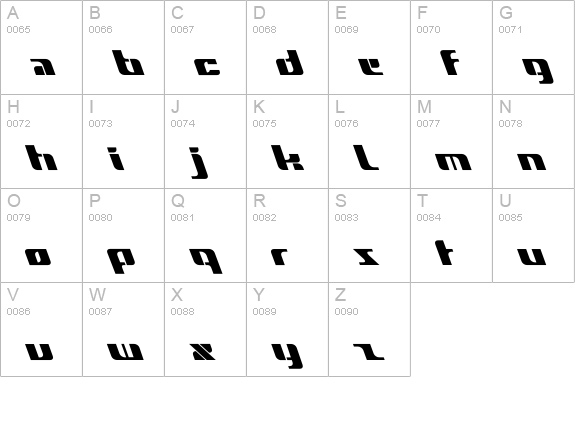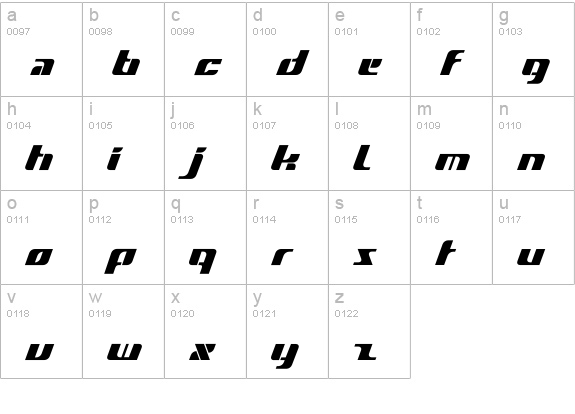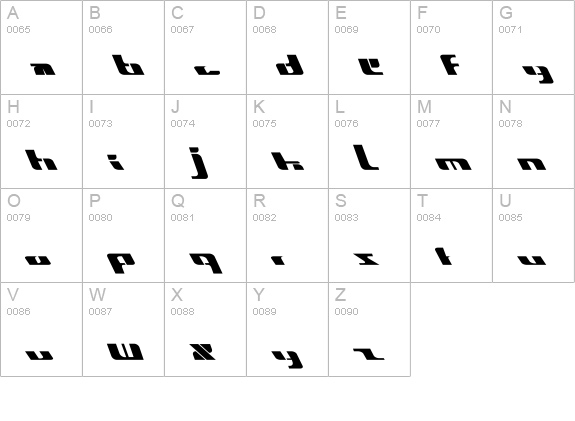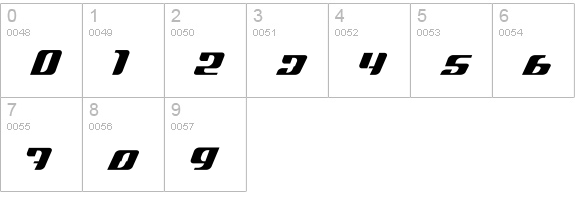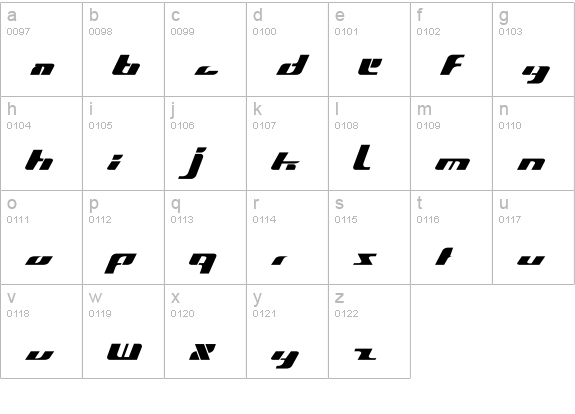
Fazer Font Details
Fazer font is a modern and stylish typeface that exudes sophistication and elegance. Its clean lines and sleek design make it perfect for a wide range of design projects, from branding to editorial layouts. The font strikes the perfect balance between classic and contemporary, making it versatile and timeless. What sets Fazer font apart is not only its impeccable design but also its accessibility. This font is available for free download at FontsMarket.com, making it a valuable resource for designers and creatives looking to elevate their projects without breaking the bank. With Fazer font, you can effortlessly add a touch of sophistication to your designs and make a lasting impression on your audience.